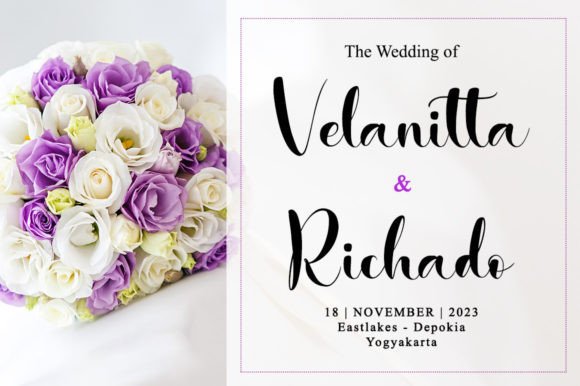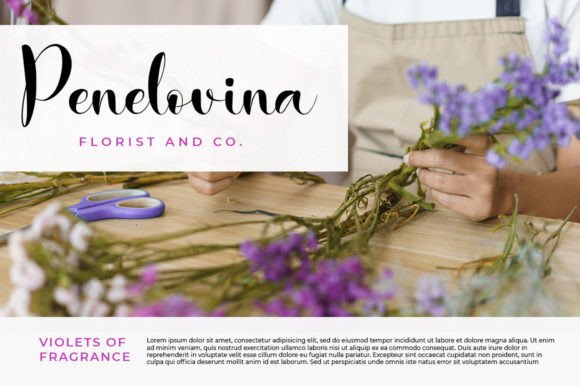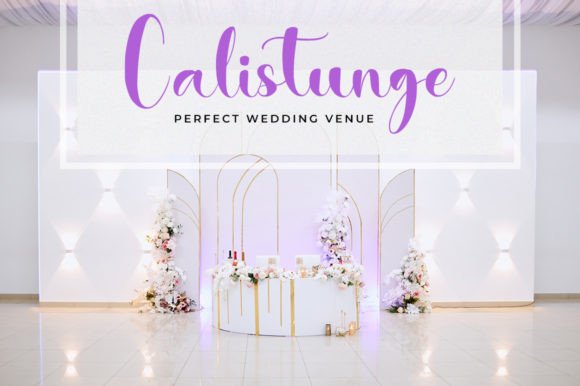
Introduction to Purelovine Font
Imagine you’re working on a special project, a wedding invitation that needs to convey the love and joy of the occasion. You’re looking for a font that exudes elegance and sophistication, something that will make your design stand out from the rest. That’s where Purelovine Font comes in – a stunning script font that adds a personal touch to any creative project.
As a designer, you understand the importance of having the right design resources at your fingertips. A high-quality font like Purelovine Font can make all the difference in bringing your vision to life. With its transparent background and beautiful, handwritten style, this font is perfect for logos and branding, invitations, stationery, and more. Whether you’re working on a free download or a paid project, Purelovine Font is an invaluable asset that will elevate your designs to the next level.
- Unique and elegant design: The font features a unique and elegant design, making it perfect for use in creative projects that require a touch of sophistication and style.
Honest Review: Purelovine Font
As a designer, I’m always on the lookout for high-quality design resources that can elevate my creative projects. Recently, I had the chance to try out the Purelovine Font, and I must say, it’s a great addition to any designer’s arsenal.
What works well: ✨ The Purelovine Font is incredibly versatile, with a unique blend of elegance and playfulness that makes it perfect for a wide range of creative projects. Its transparent background also makes it easy to use with any design style or color scheme.
Limitations: ⚠️ While the Purelovine Font is a great design resource, it does have some limitations. For example, it’s a bit limited in terms of character set and language support, which may be a concern for designers working on global projects.
Overall impression: I’m really impressed with the Purelovine Font, and I think it’s a great option for designers looking for a high-quality, versatile font. It’s perfect for creative projects that require a unique and eye-catching look.
- Perfect for creative projects that require a unique and eye-catching look
- Incredibly versatile and easy to use
- Great for designers working on high-quality design projects
Tips for Getting the Most Out of Purelovine Font
For the best results, use the Purelovine Font on a high-quality design resource with a transparent background. This will allow the font to stand out and add a touch of elegance to your creative project.